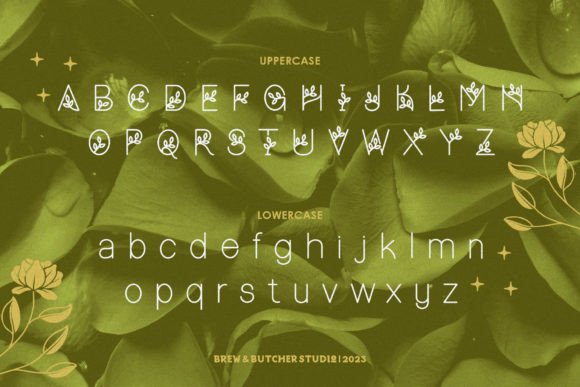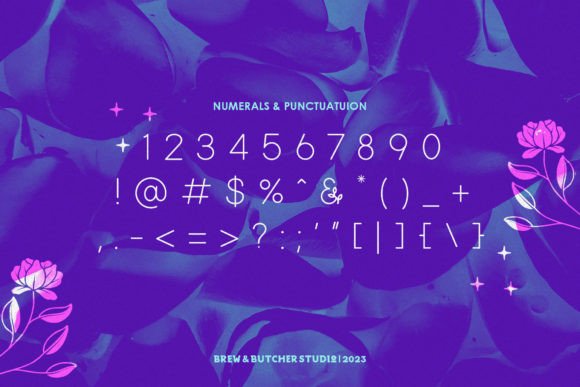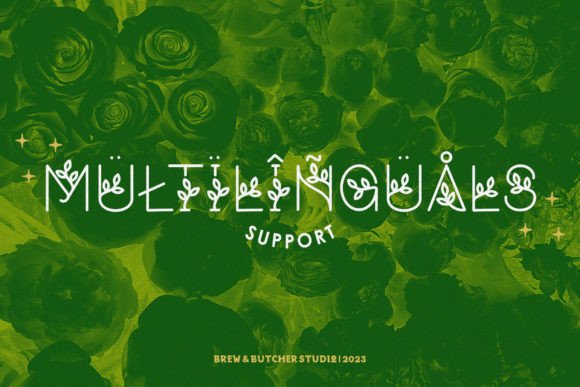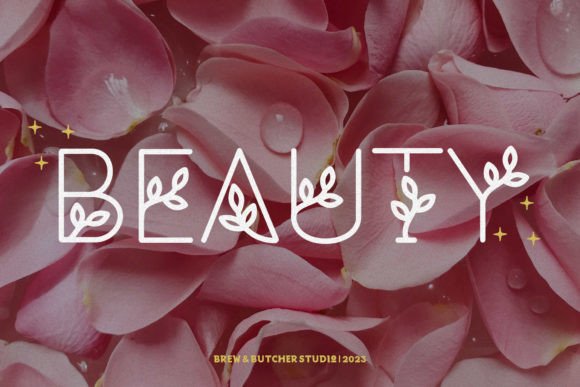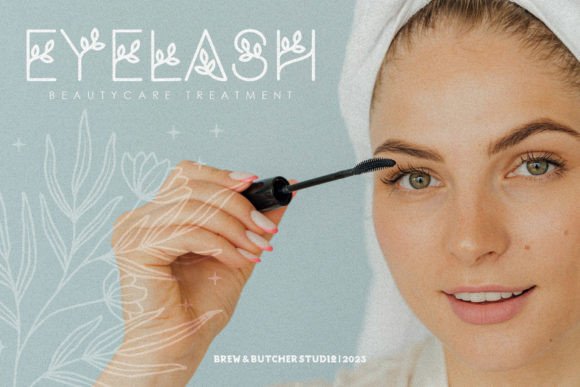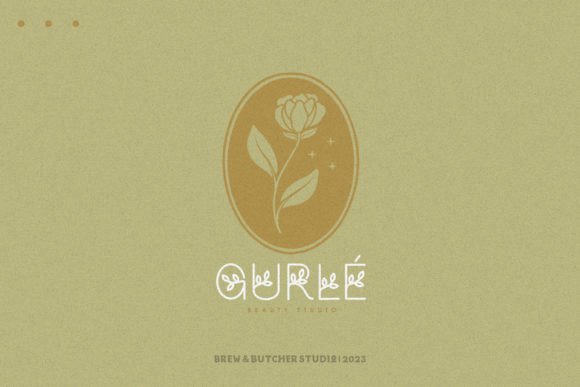
Introduction to Loryme Font
Have you ever found yourself scrolling through your design files, searching for the perfect font to bring your creative project to life? That’s exactly what happened to me the other day, when I stumbled upon the Loryme Font. Its unique and quirky lines immediately caught my attention, and I couldn’t wait to see how it would look in my design.
As designers, we know how valuable a high-quality font can be. It can make or break a design, and having a reliable design resource like the Loryme Font can be a game-changer. Not only is it free to download, but it’s also available with a transparent background, making it perfect for any creative project.
Key Features of Loryme Font
- Designed with a unique, modern aesthetic to enhance any creative project
Honest Review: Loryme Font
I recently had the chance to explore the Loryme Font, and I must say it’s a solid addition to any designer’s toolkit. As a design resource, it’s great to see fonts like this being made available for free download.
One of the standout features of the Loryme Font is its high quality and versatility. It comes in a range of weights and styles, making it perfect for creative projects where you need to convey a sense of sophistication or playfulness. The font is also incredibly easy to use, with a transparent background that makes it simple to layer and combine with other design elements.
- Range of weights and styles for added versatility
- Easy to use and layer with other design elements
- Some users may find the font too simple or generic
- The transparent background can sometimes make it difficult to read against certain backgrounds
Overall, I’d say the Loryme Font is a great addition to any designer’s toolkit. While it may not be perfect, it’s a solid choice for creative projects where you need a high-quality, versatile font.
Common Use Cases for Loryme Font
The Loryme Font is ideal for creative projects, such as graphic design, digital art, and marketing materials. You can also use it for personal projects, like blog posts and social media graphics.
Does the Loryme Font have a transparent background?
Yes, the Loryme Font has a transparent background, making it easy to use in design projects that require a clear or semi-transparent font. This feature is especially useful for creating graphics and designs with a layered or multi-colored background. Simply use the font in your design software, and you can adjust the background color or transparency to suit your needs.